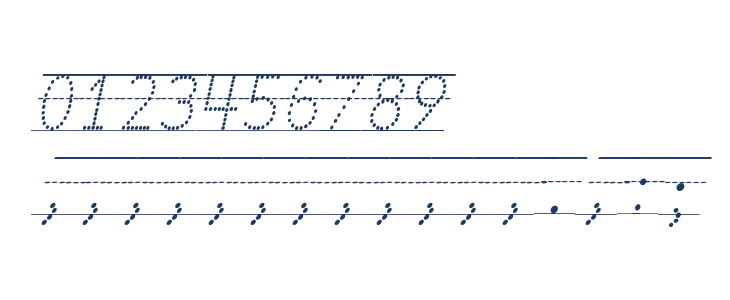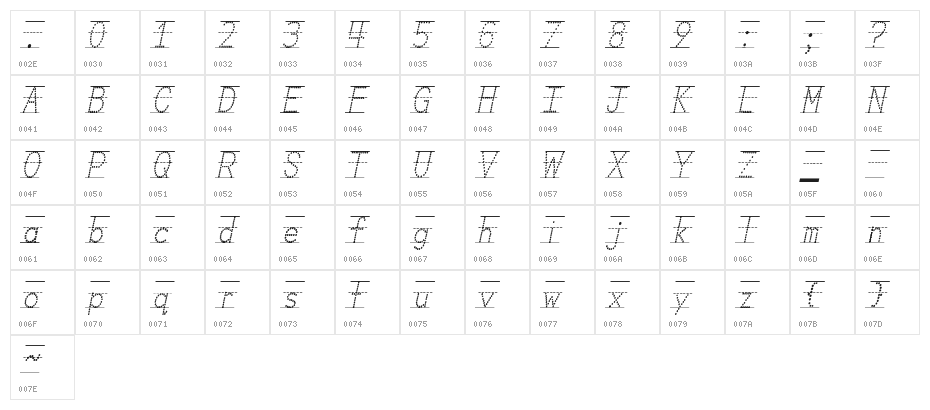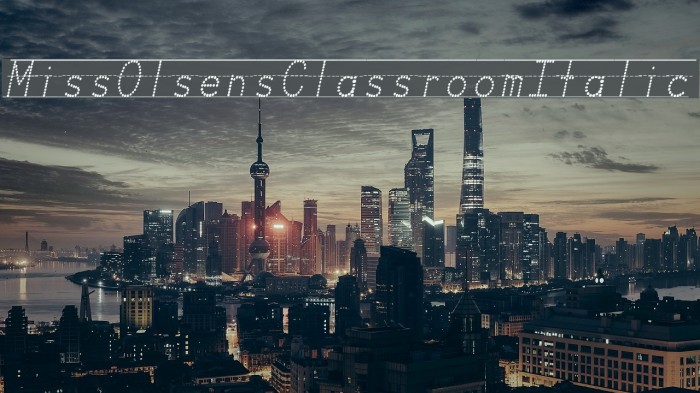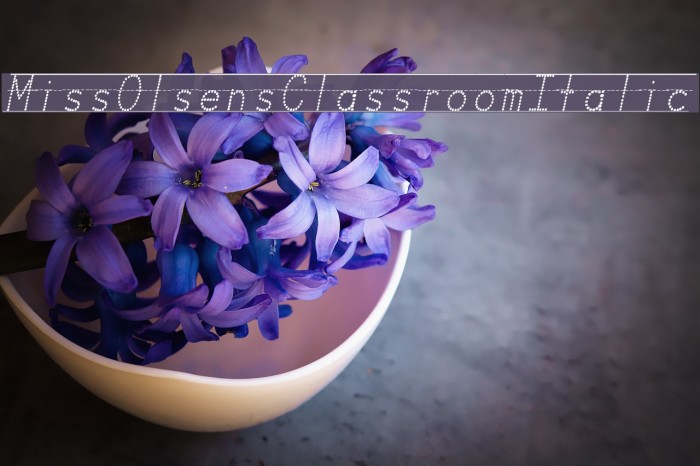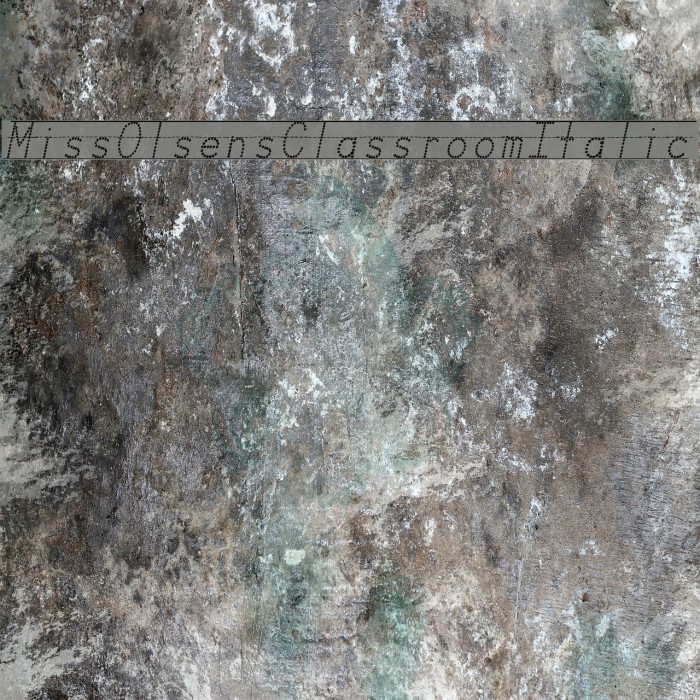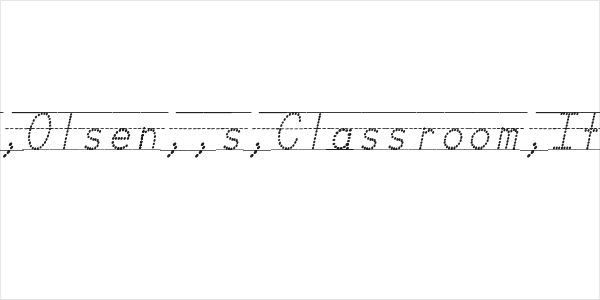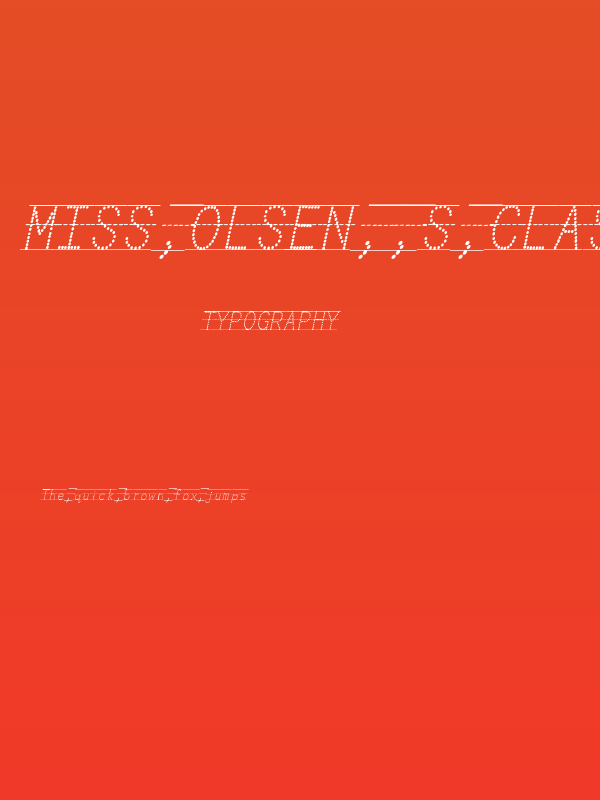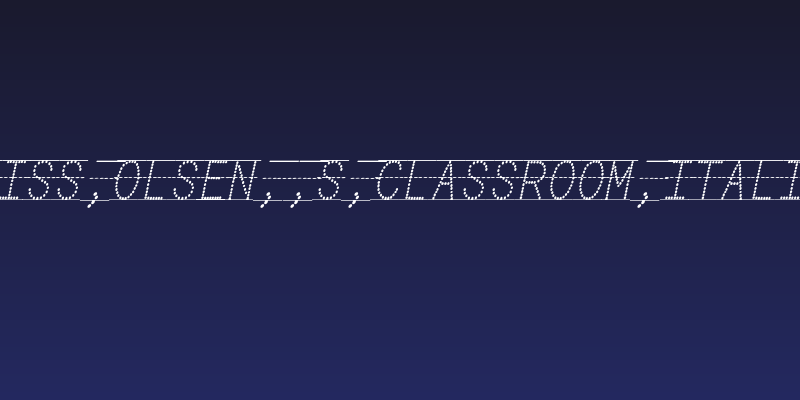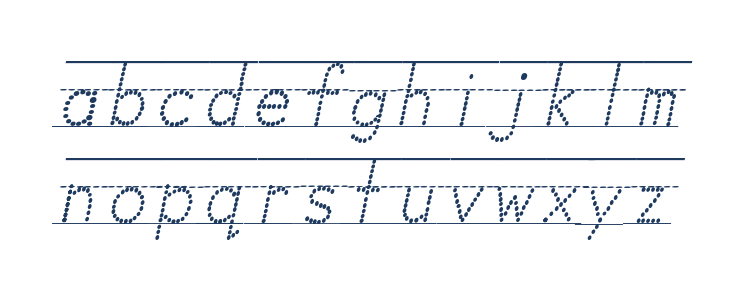
Miss Olsen's Classroom Italic Font
Miss Olsen's Classroom Italic Description
This font is a playful and educational style designed to mimic the look of handwriting practice sheets. Each character is composed of dotted lines, providing a guide for learners to trace and practice their writing skills. The letters are slightly slanted, giving it an italic appearance, and are evenly spaced on a baseline with ascender and descender guidelines. This style is particularly useful for teaching young students how to form letters and numbers correctly. The font includes both uppercase and lowercase alphabets, numerals, and a selection of basic punctuation marks. Its design is simple yet effective for educational purposes, focusing on clarity and ease of use.
| Overall Style | Educational |
| Use Case | Educational materials, handwriting practice |
| Proposed Projects | Ideal for educational materials, handwriting practice sheets, and children's learning apps. |